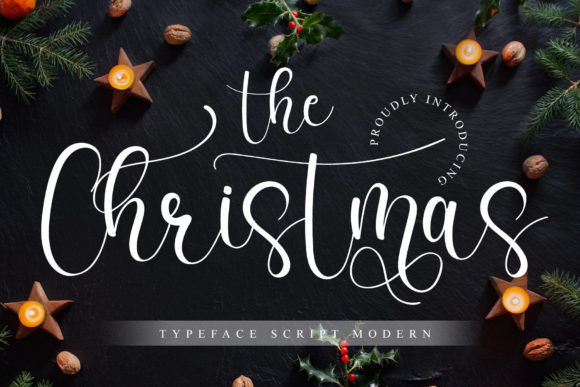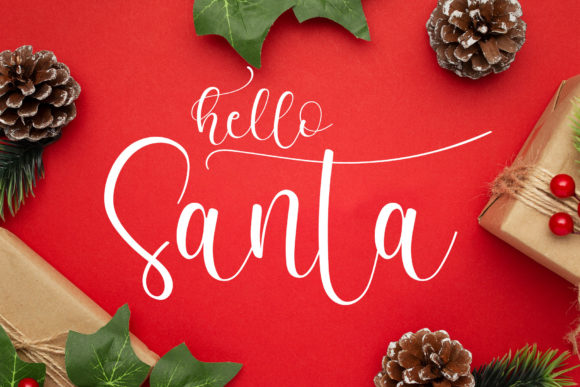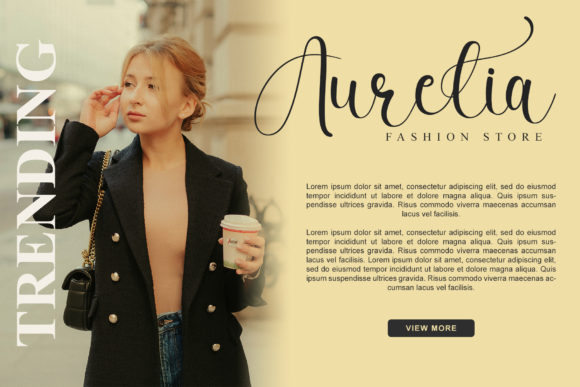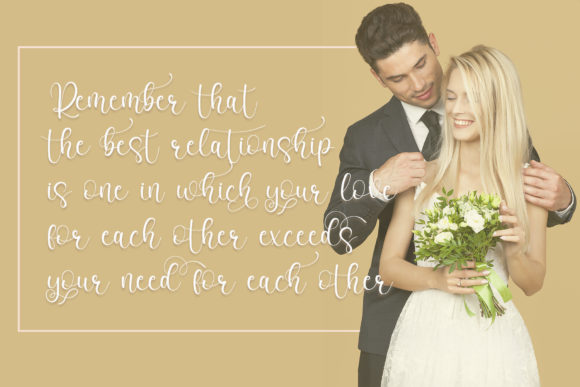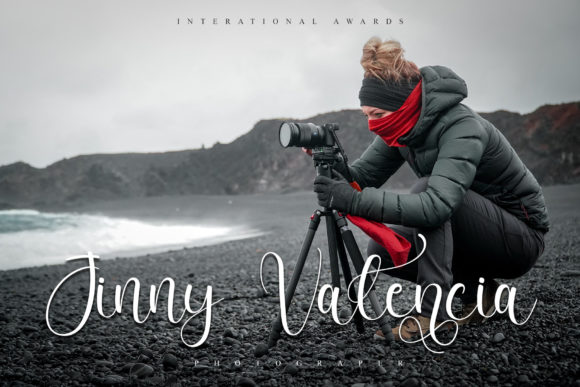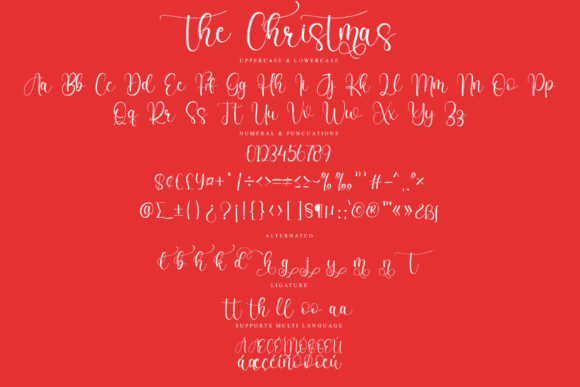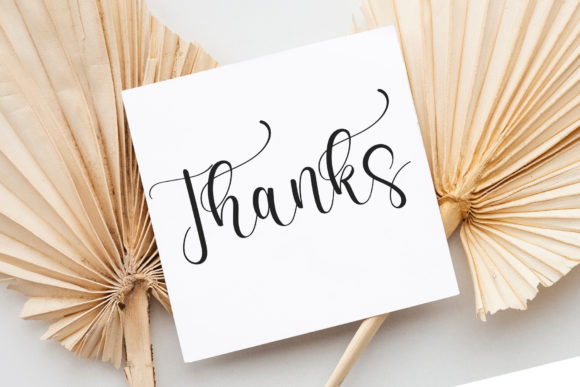
The Christmas Font
About The Christmas Font
The Christmas is a lovely and delicate script font that exudes elegance and class. This font was particularly crafted for those who need a beautiful and refreshing look to their designs.